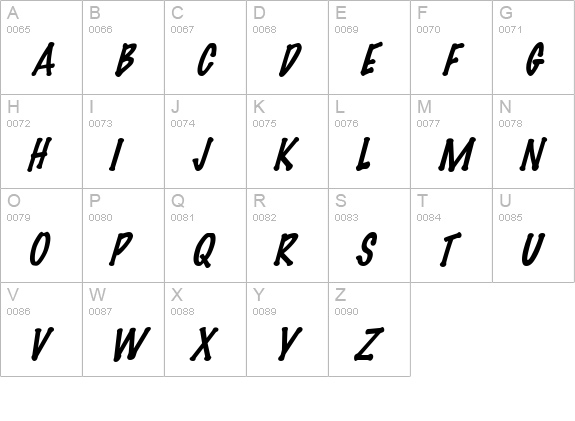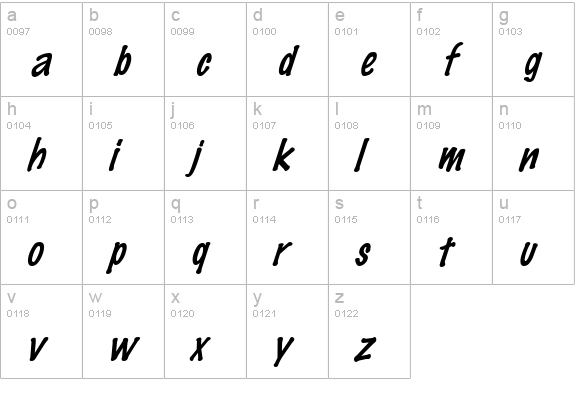
FeltMark Italic Font Details
FeltMark Italic is a distinctive, italic variant in the FeltMark typeface family \xE2\x80\x94 well suited to design and typography projects.
FeltMark Italic font is a unique and stylish typeface that exudes elegance and sophistication. Its slanted design adds a touch of flair to any project, making it perfect for both creative and professional use. The smooth curves and delicate lines of this font give it a soft and inviting appearance, making it ideal for adding a touch of personality to your designs. What sets FeltMark Italic font apart is that it is not only visually appealing but also versatile and easy to read. Whether you're designing a logo, creating a poster, or crafting a social media post, this font will make your text stand out and leave a lasting impression. Best of all, FeltMark Italic font is available for free download at FontsMarket.com. Now you can easily access this stunning font and elevate your design projects without breaking the bank. Don't miss out on this opportunity to enhance your creations with the beauty and charm of FeltMark Italic font.